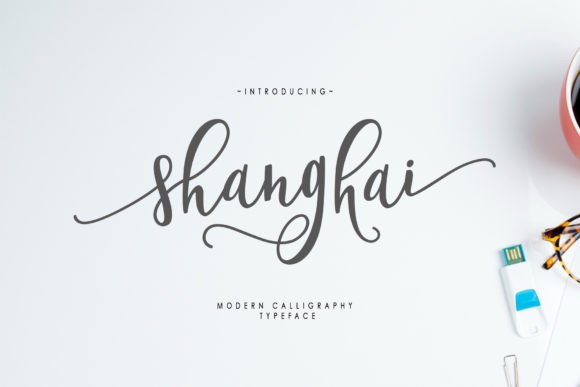
Welcome to the world of Shanghai Script, a beautifully crafted type family that will redefine your creative journey. If elegance is the essence you seek for your next project, then look no further!
Shanghai Script is a mesmerizing blend of classic charm and contemporary style that will leave you spellbound. Its exquisite design, featuring sweeping curves and graceful flourishes, brings a touch of timeless sophistication to every design endeavor.
Crafted by the talented hands of moriztype, this hand-drawn masterpiece showcases a range of weights and styles to suit every project's unique needs. Its versatility extends beyond fonts, offering a wide selection of catchwords, swashes, and ligatures that unleash endless possibilities for creative expression.
Shanghai Script's delicate curves and refined details add a touch of elegance and romance to any project. Whether you're designing wedding invitations, fashion posters, or elegant logos, this font family is your perfect companion. Its graceful lines will enhance your work, evoking a sense of timeless beauty.
Beyond its aesthetic appeal, Shanghai Script is meticulously designed to provide optimal performance and ease of use. Its crisp, clean lines ensure sharp and clear rendering, even at small sizes. Effortlessly navigate through its extensive character set, featuring multilingual support, and let your creativity flow freely.
Take your designs to new heights with Shanghai Script, the font family that is sure to inspire. It's a visual masterpiece that will add a touch of captivating charm to your next project. Unleash your creativity and experience the magic of Shanghai Script today!